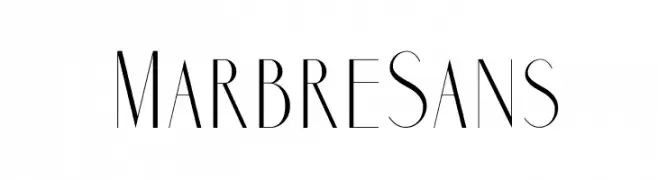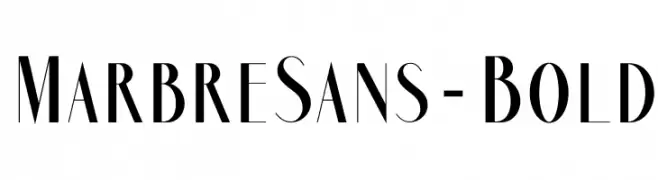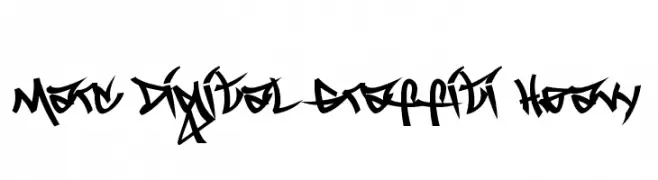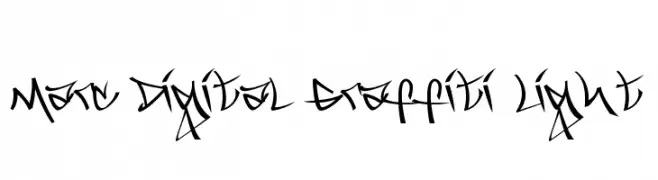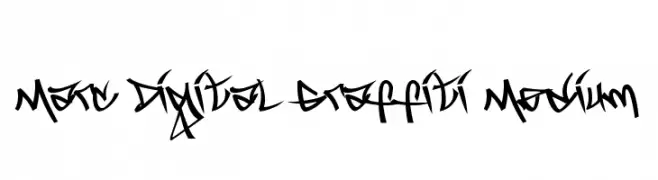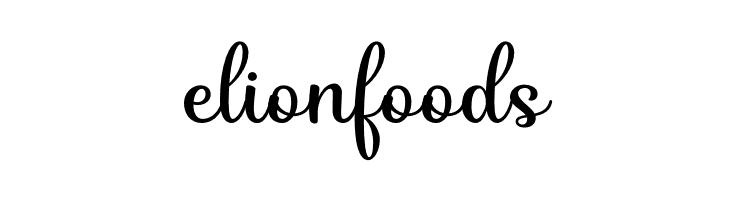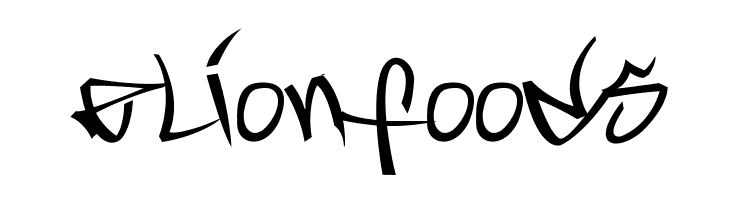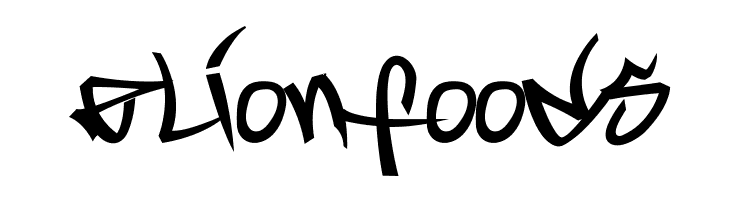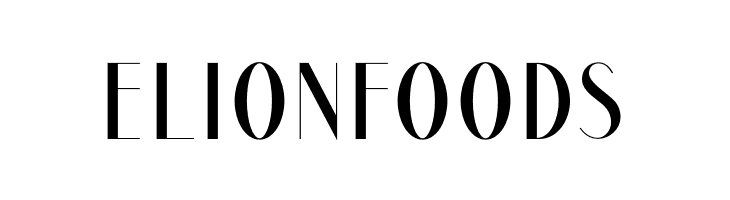
A bold, flowing script font with elegant curves and a modern touch.
A modern, high-contrast font with tall, slender characters.
A modern, high-contrast sans-serif font with elegant, slender characters.
A sleek, modern font with high contrast and elegant, slender characters.
A high-contrast, elegant font with elongated, narrow characters.
A bold, graffiti-inspired font with dynamic, artistic strokes.
A dynamic graffiti-style font with bold, angular strokes and sharp edges.
A bold graffiti-style font with sharp angles and fluid strokes.
A bold, graffiti-inspired font with dynamic, angular strokes.
An elegant and flowing script font with graceful curves and loops.